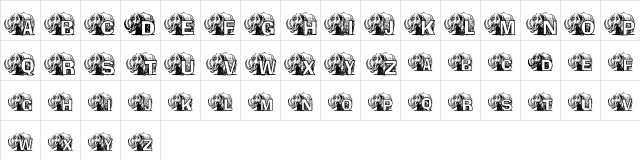
JNKWOOLY Regular Free Font
JNKWOOLY Regular
Design Context for JNKWOOLY
JNKWOOLY is a composed and adaptable typeface that performs quietly and consistently across a wide range of design contexts.